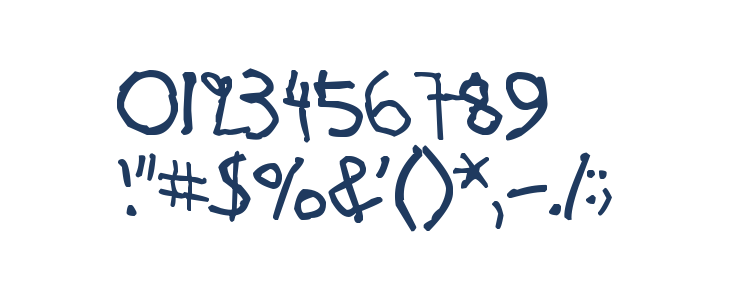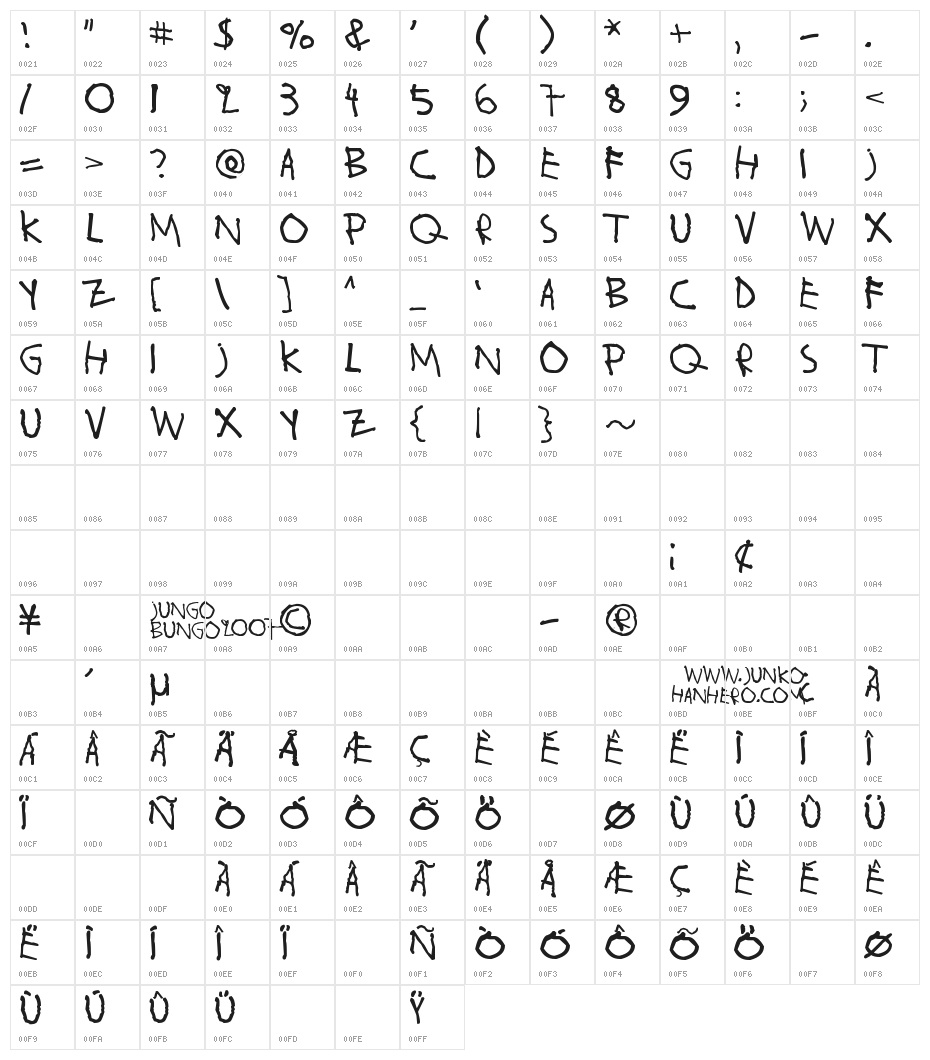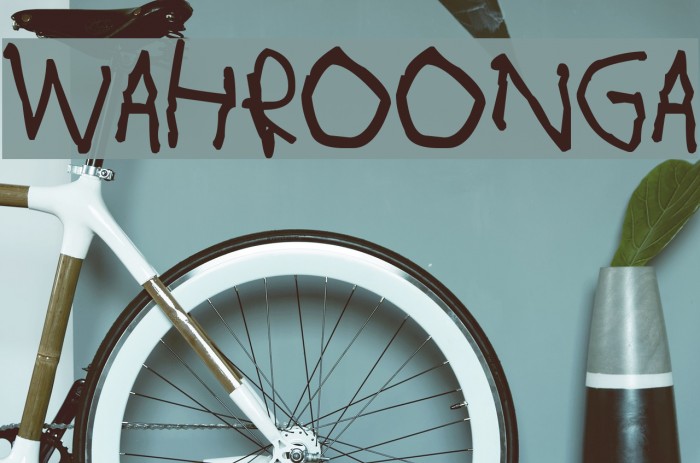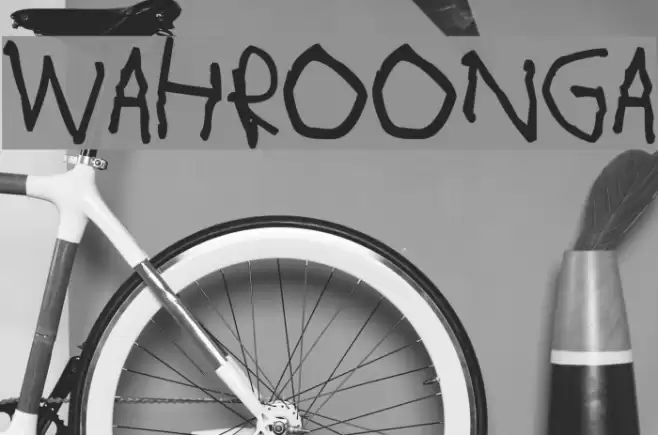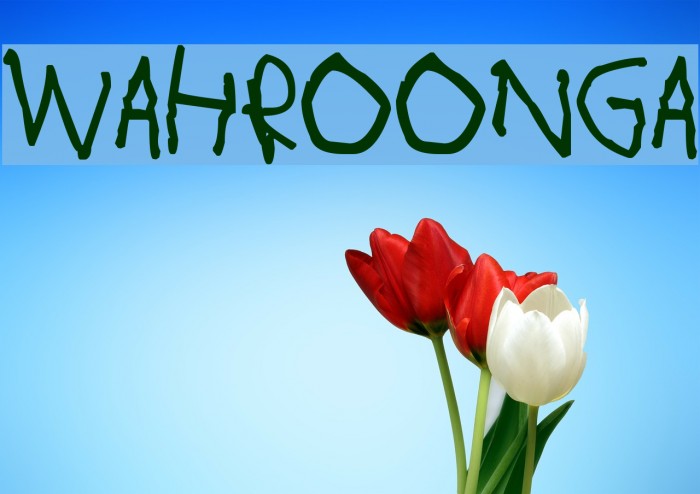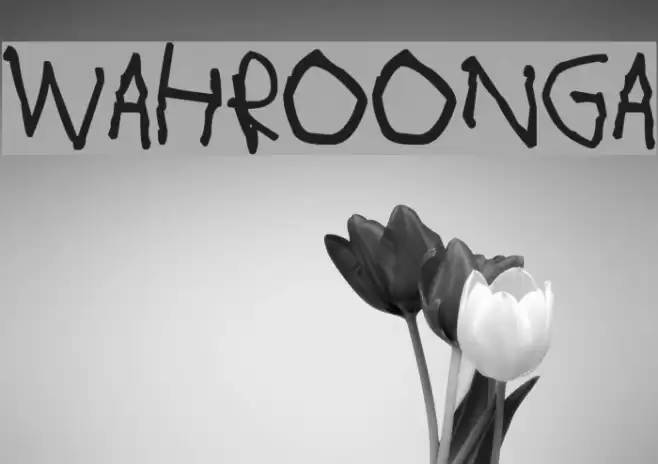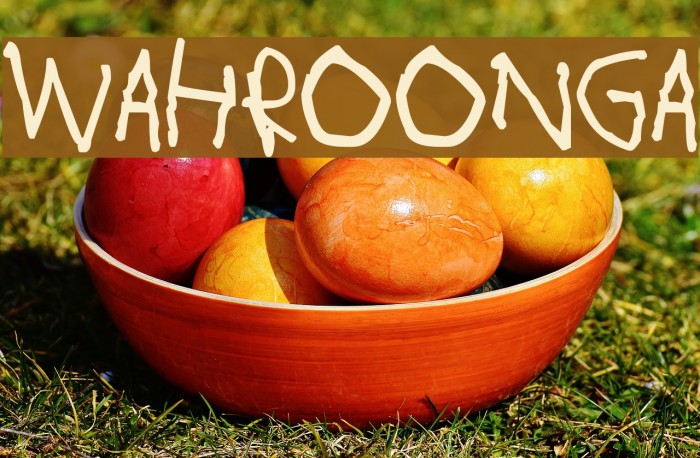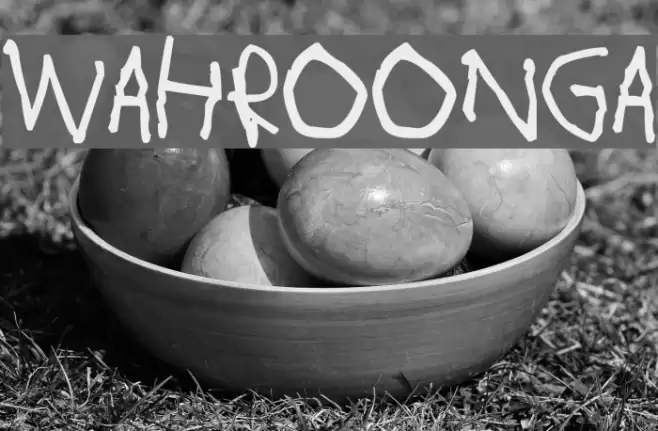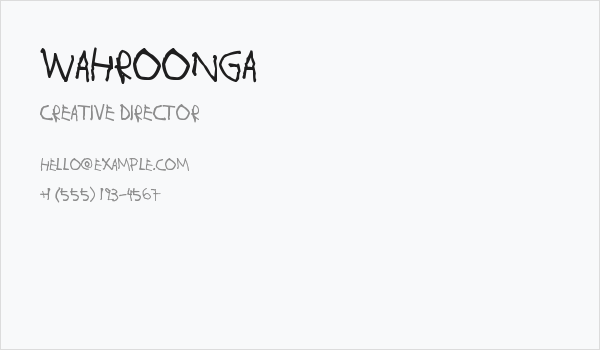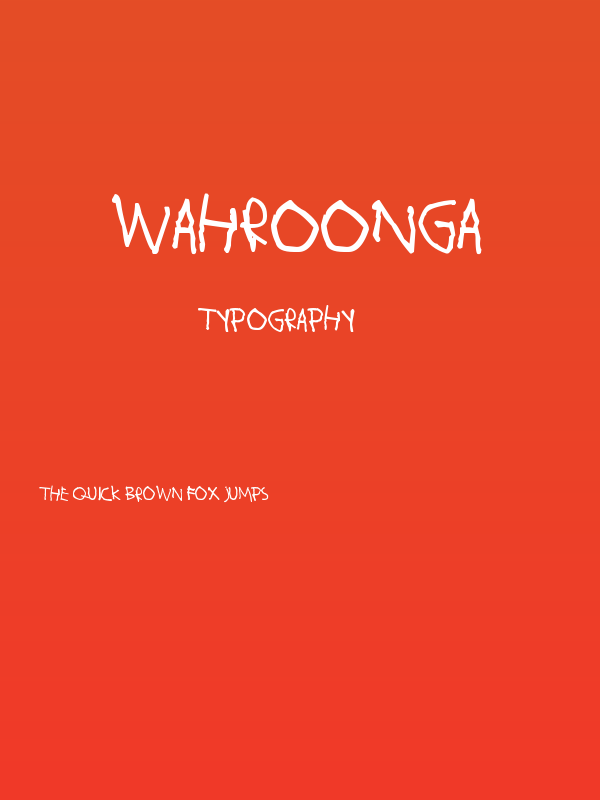
Wahroonga Font
Wahroonga Description
This font exudes a playful and artistic vibe, characterized by its irregular, hand-drawn appearance. The letters are bold and slightly uneven, giving each character a unique personality. The strokes are thick and vary in width, contributing to a dynamic and energetic feel. The uppercase and lowercase letters maintain a consistent style, while the numbers and special characters integrate seamlessly with the alphabet. This font's organic and spontaneous look makes it ideal for creative projects that require a touch of whimsy and individuality.
| Proposed Projects | Ideal for children's book covers, creative posters, artistic branding, and casual invitations. |